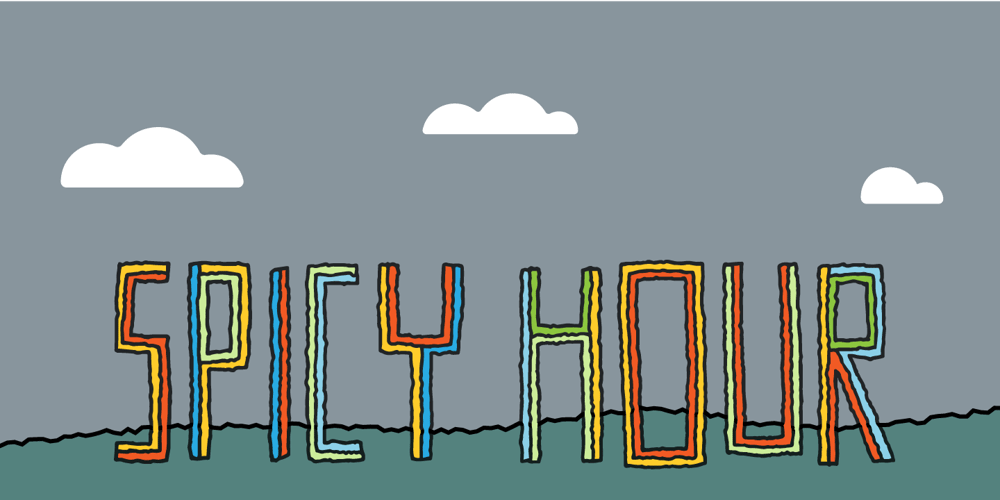
Spicy Hour
Spicy Hour font
Spicy Hour Font Family was designed by Jakob Fischer and published by PizzaDude.dk. Spicy Hour contains 3 styles and family package options. Spicy Hour can be used for all your dishes and designs that needs that extra seasoning. Just mix, and you are ready to go!The ingredients includes contextual alternates, which in this case means that every letter has 5 different versions, which automatically cycles as you type. In other words, it spices up your text!Multilingual support is also a part of the dish!